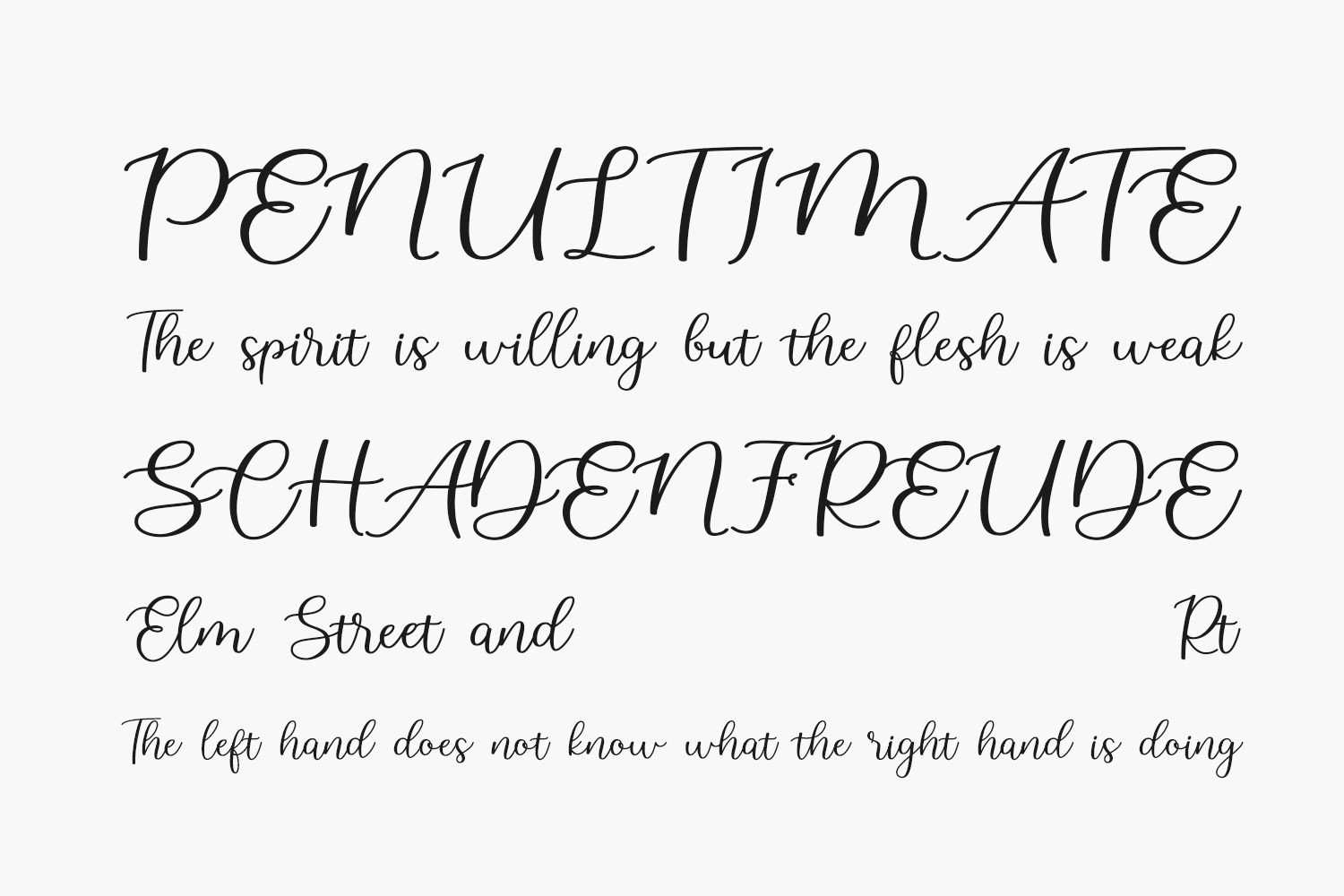
Denalova Free Font is a sweet and cool handwritten font with a unique style. It will take your new crafting project to the next level. Denalova Free Font was designed by Almarkhatype is a demo and free for personal use only. Please purchase the full version for commercial use.